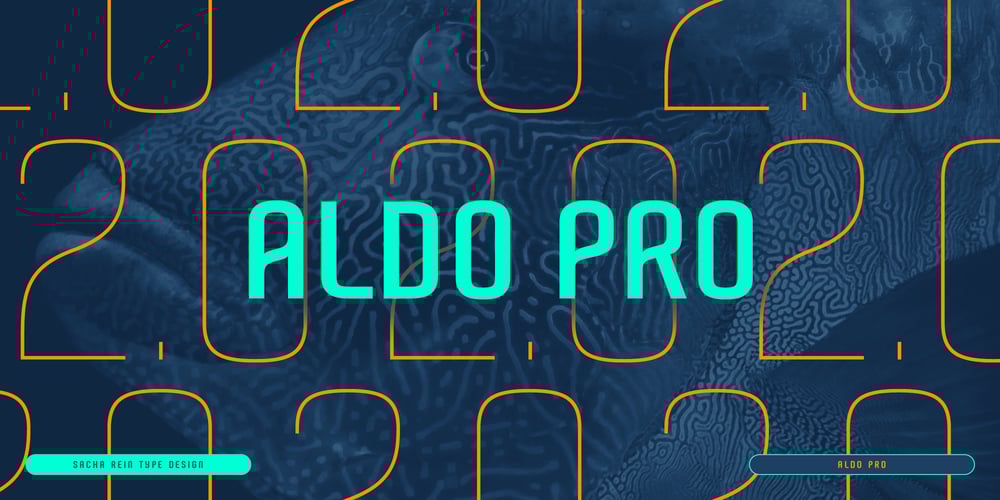
Aldo Pro Font Family was designed by Sacha Rein and published by Sacha Rein. Aldo Pro contains 8 styles and family package options. The new Aldo Pro is the sleek successor to our beloved 2015 classic. We’ve ironed out the kinks, expanded the character set, and injected a dose of creativity to amplify your typographic playground. But that’s not all – Aldo Pro now dances in perfect harmony with its curvy counterpart, the freshly minted Aldo Pro Round. Whether you’re crafting head-turning logos, building unforgettable brands, or composing compelling body text, this dynamic duo has got you covered.